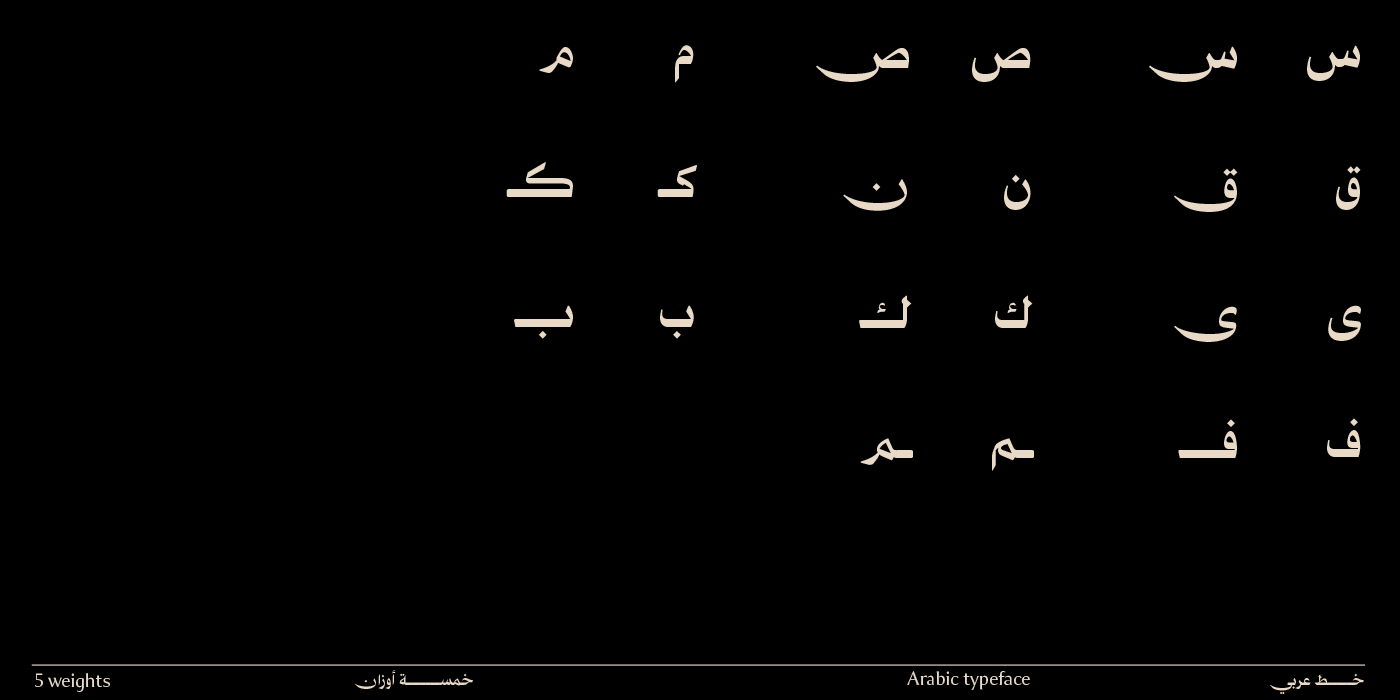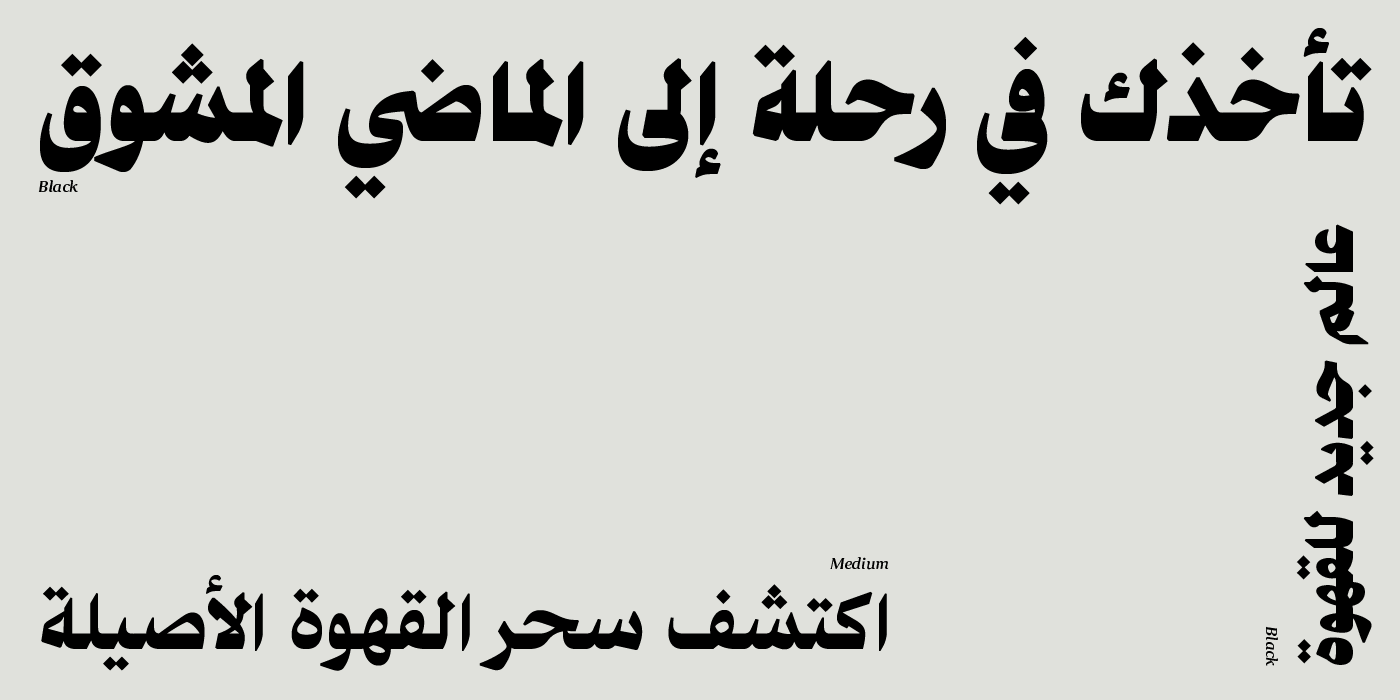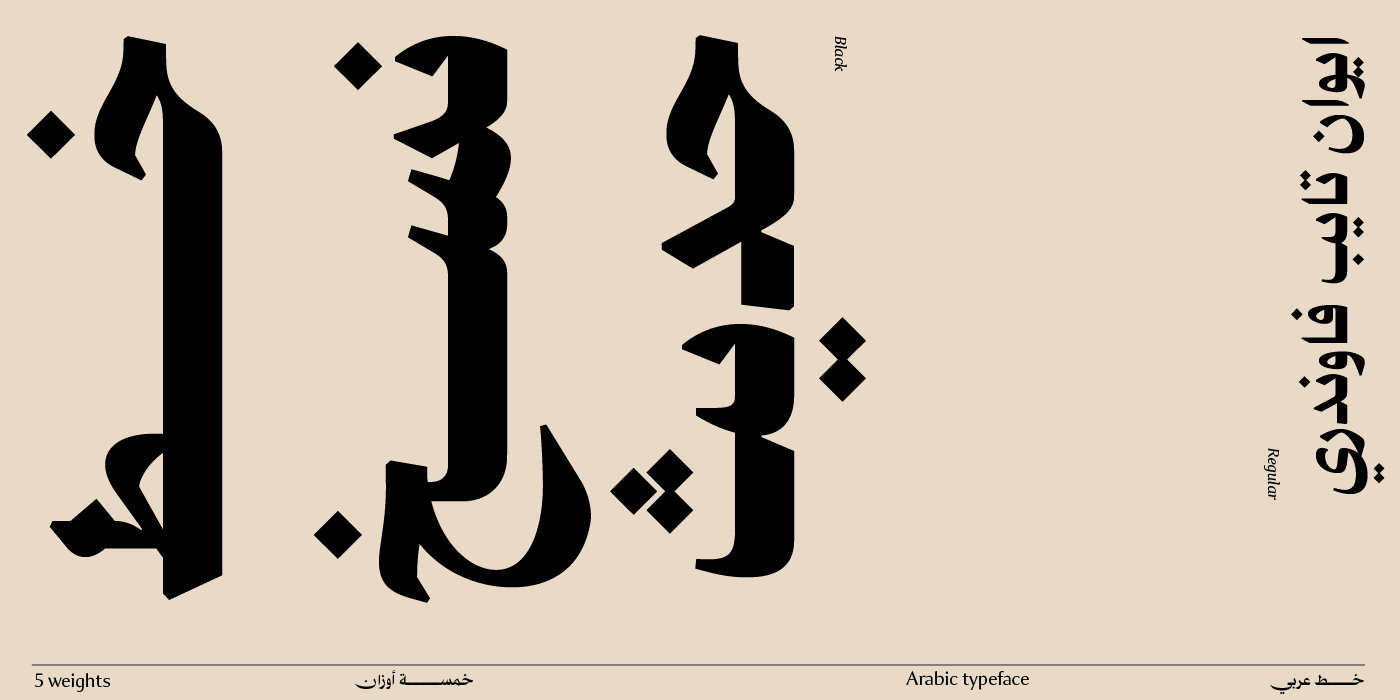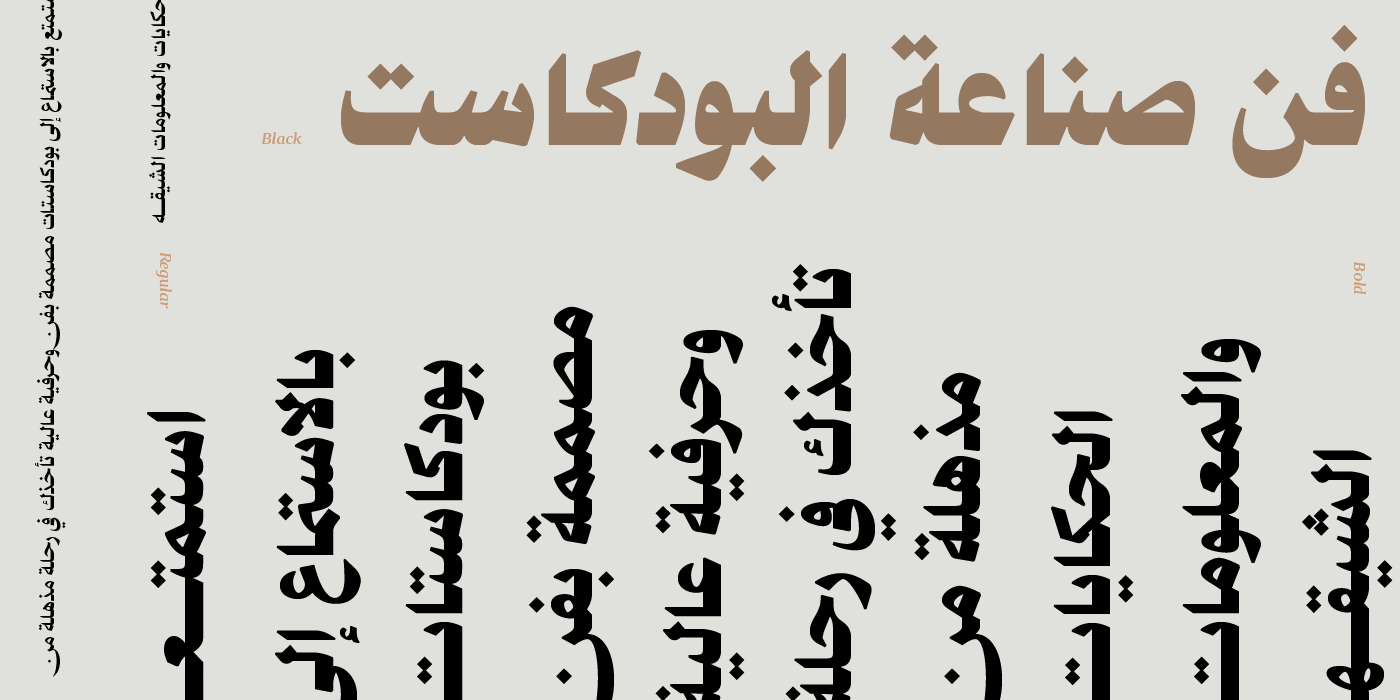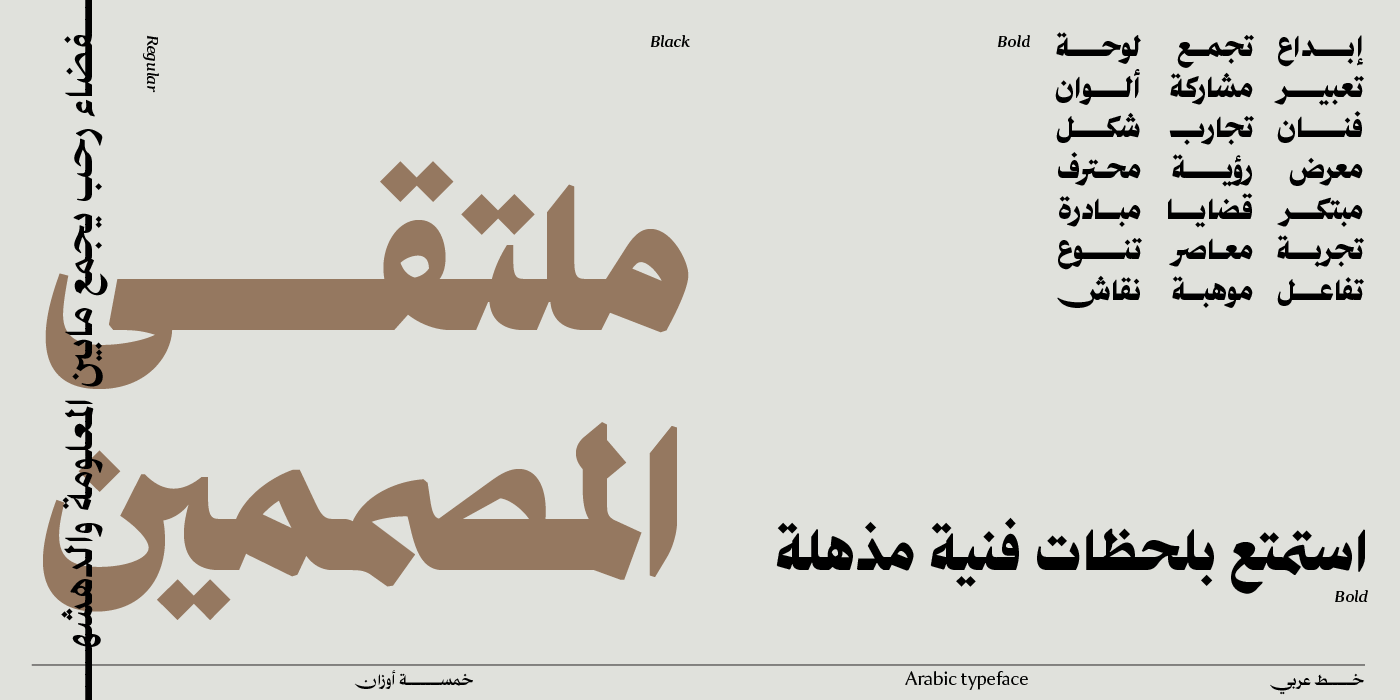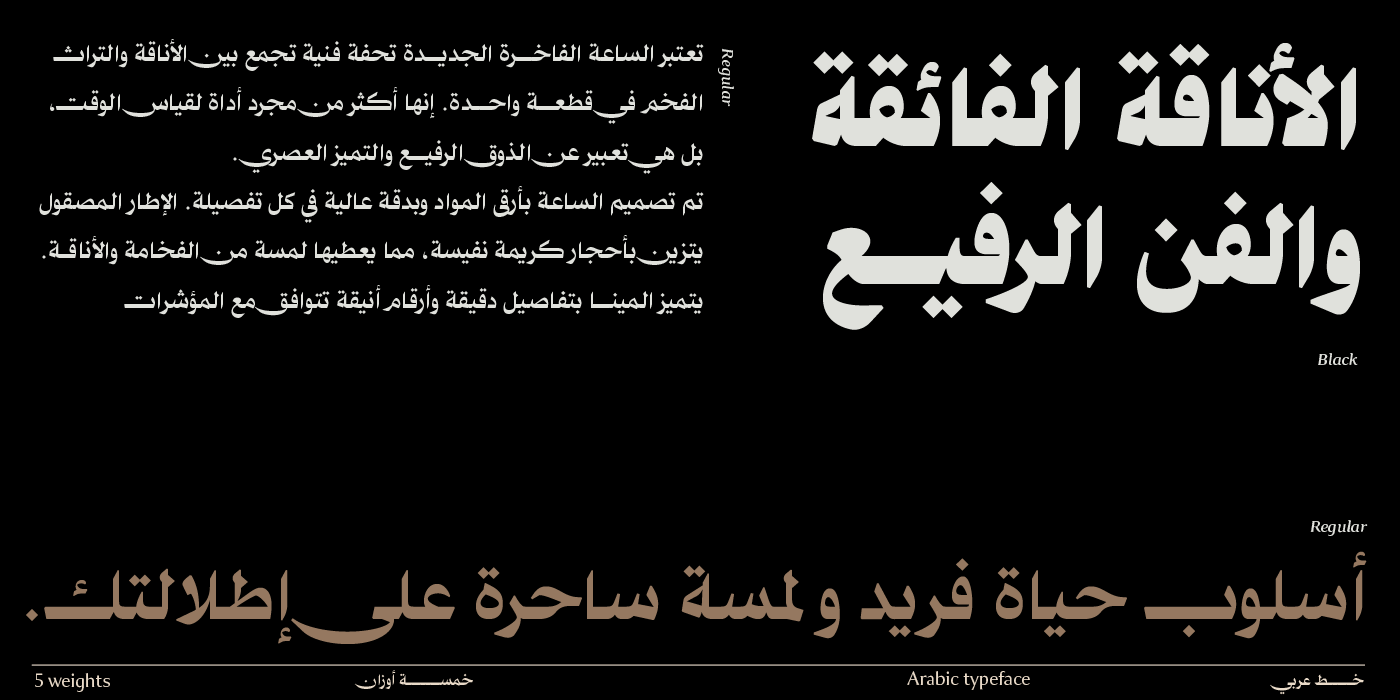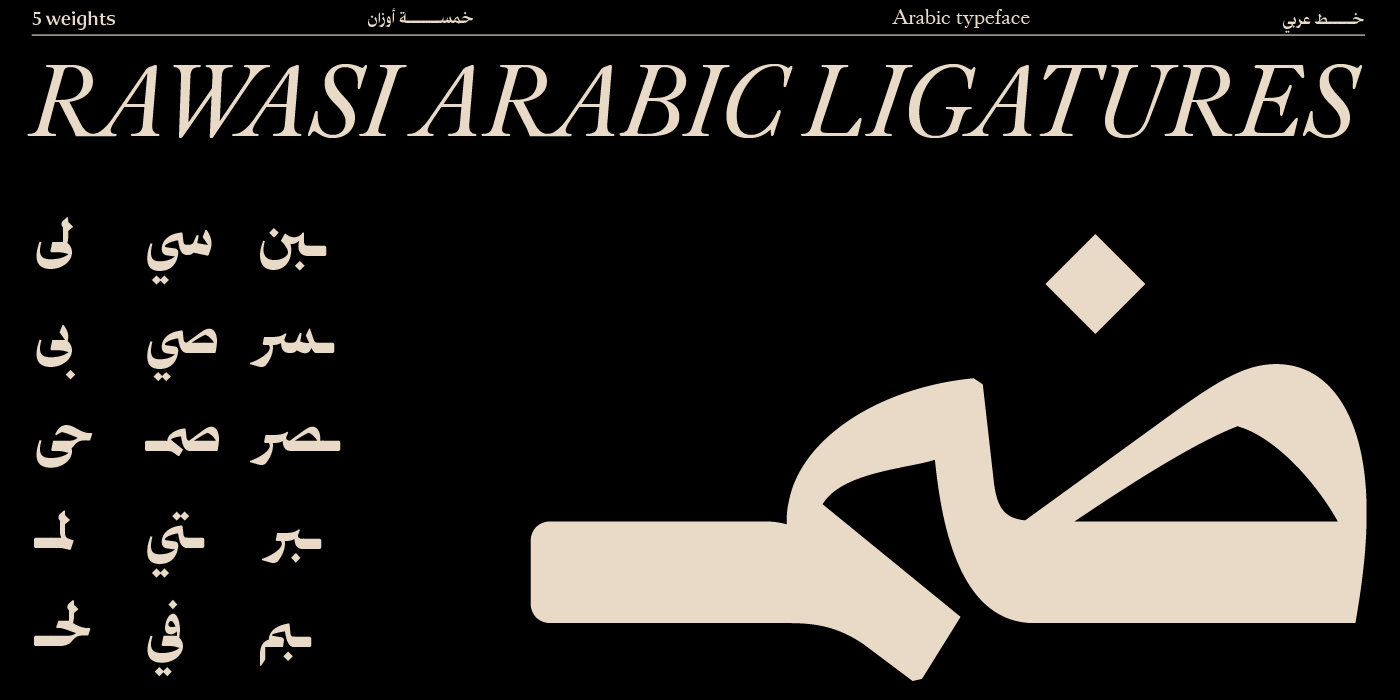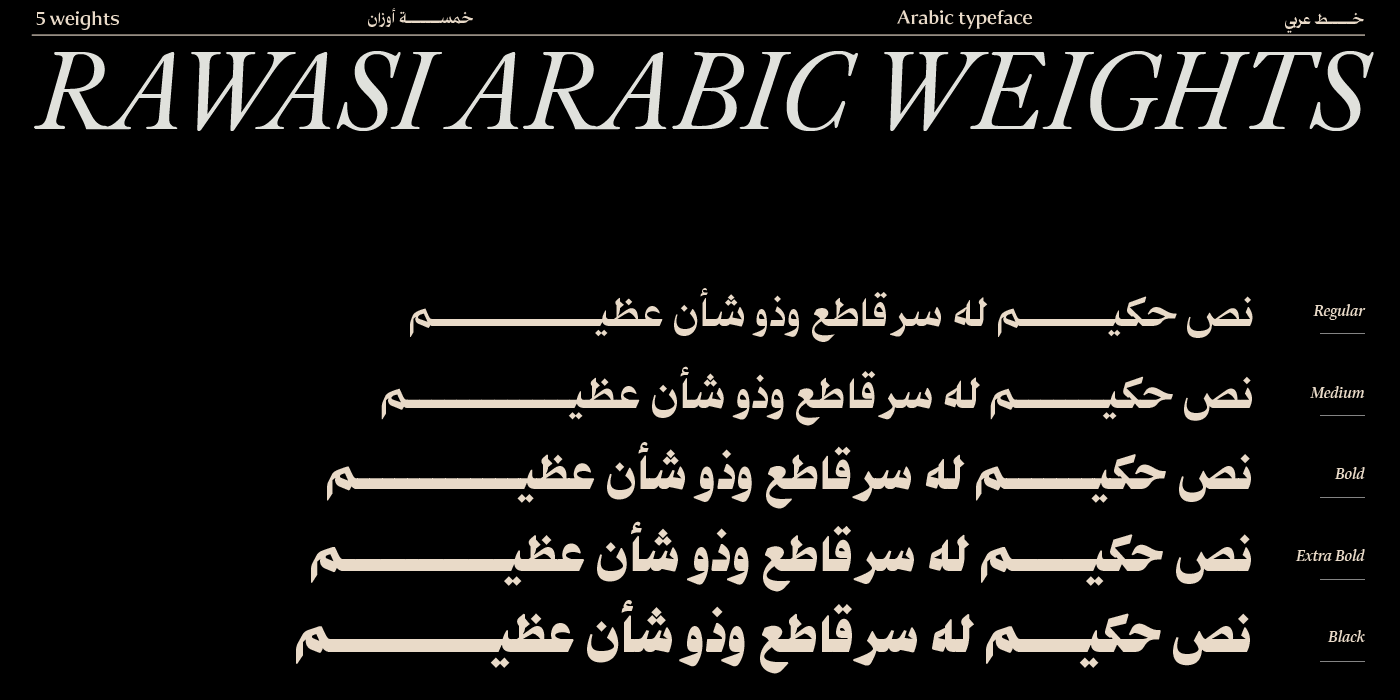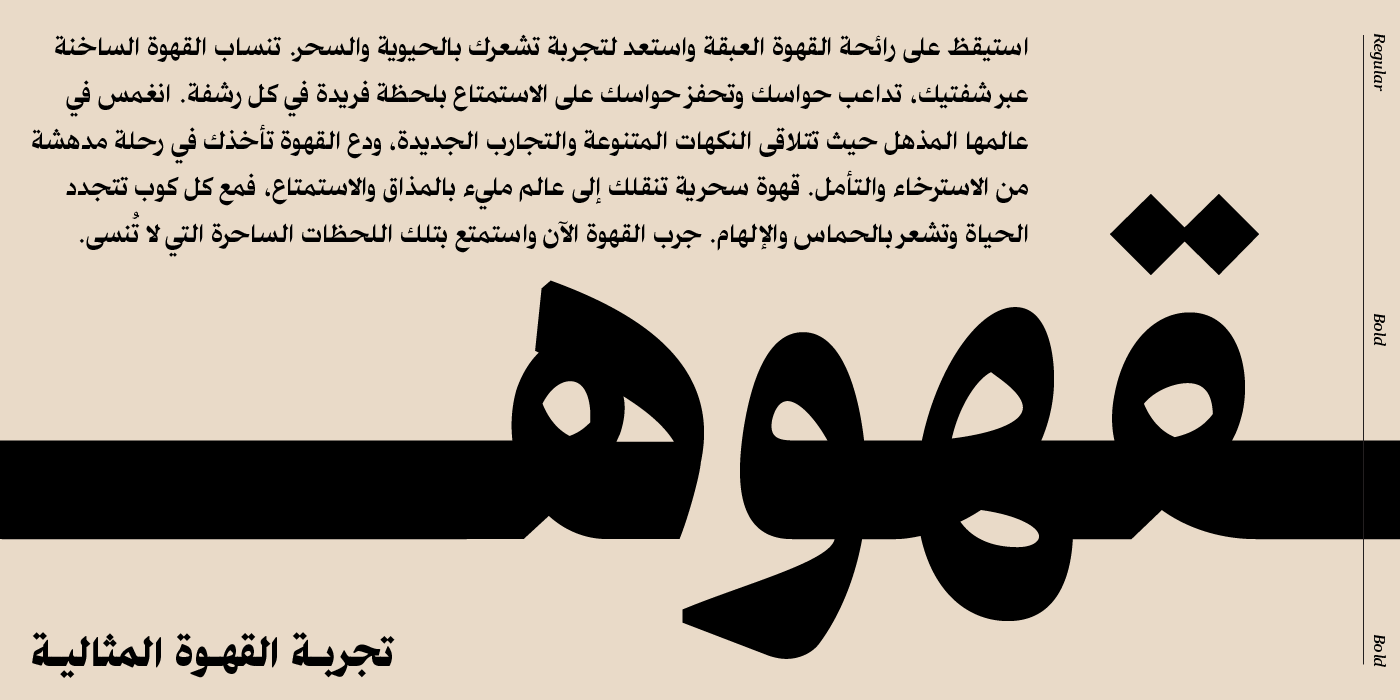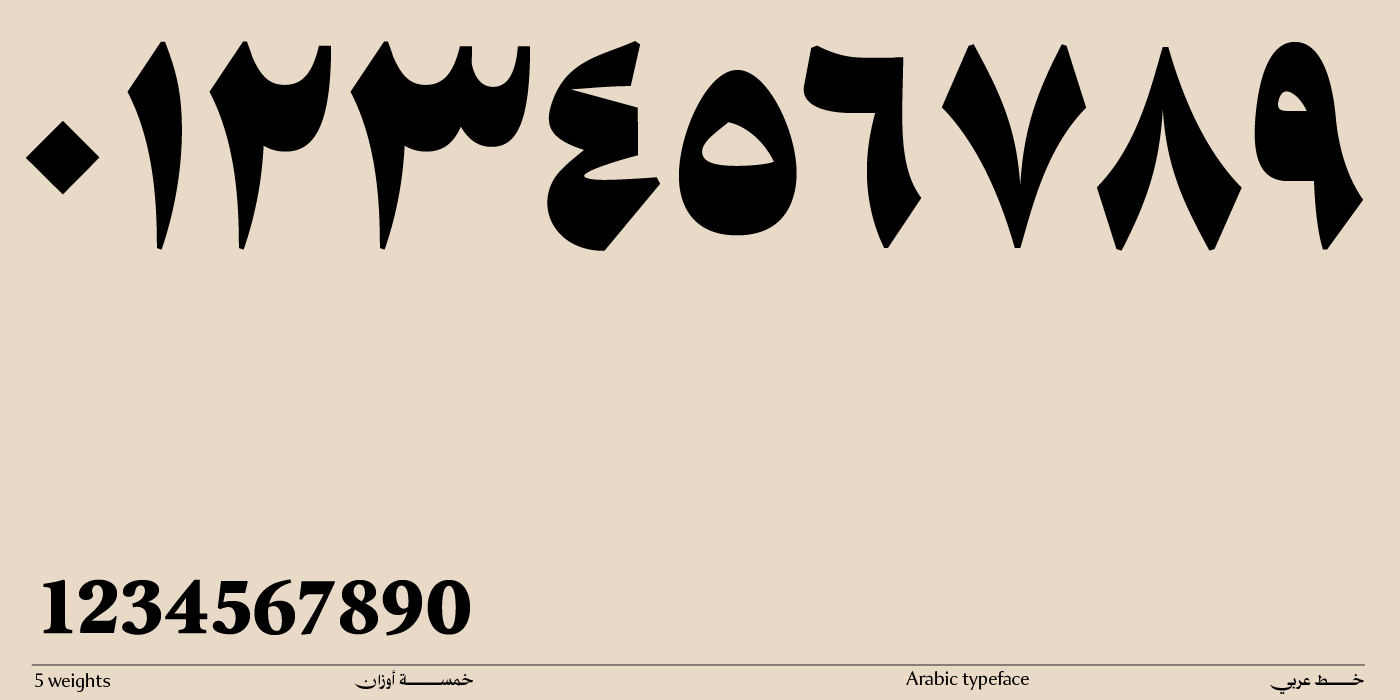
Rawasi Arabic typeface - خط رواسي
Rawasi Arabic is an Arabic font with a strong and distinct design. Based on the Naskh style. Naskh Mastre, also caled modern Naskh. It features sharp and powerful edges that exude strength and impact. Rawasi consists of five versatile weights, allowing you to express yourself freely and creatively in various design projects. Its unique style adds a touch of elegance and sophistication, making it suitable for a wide range of applications.